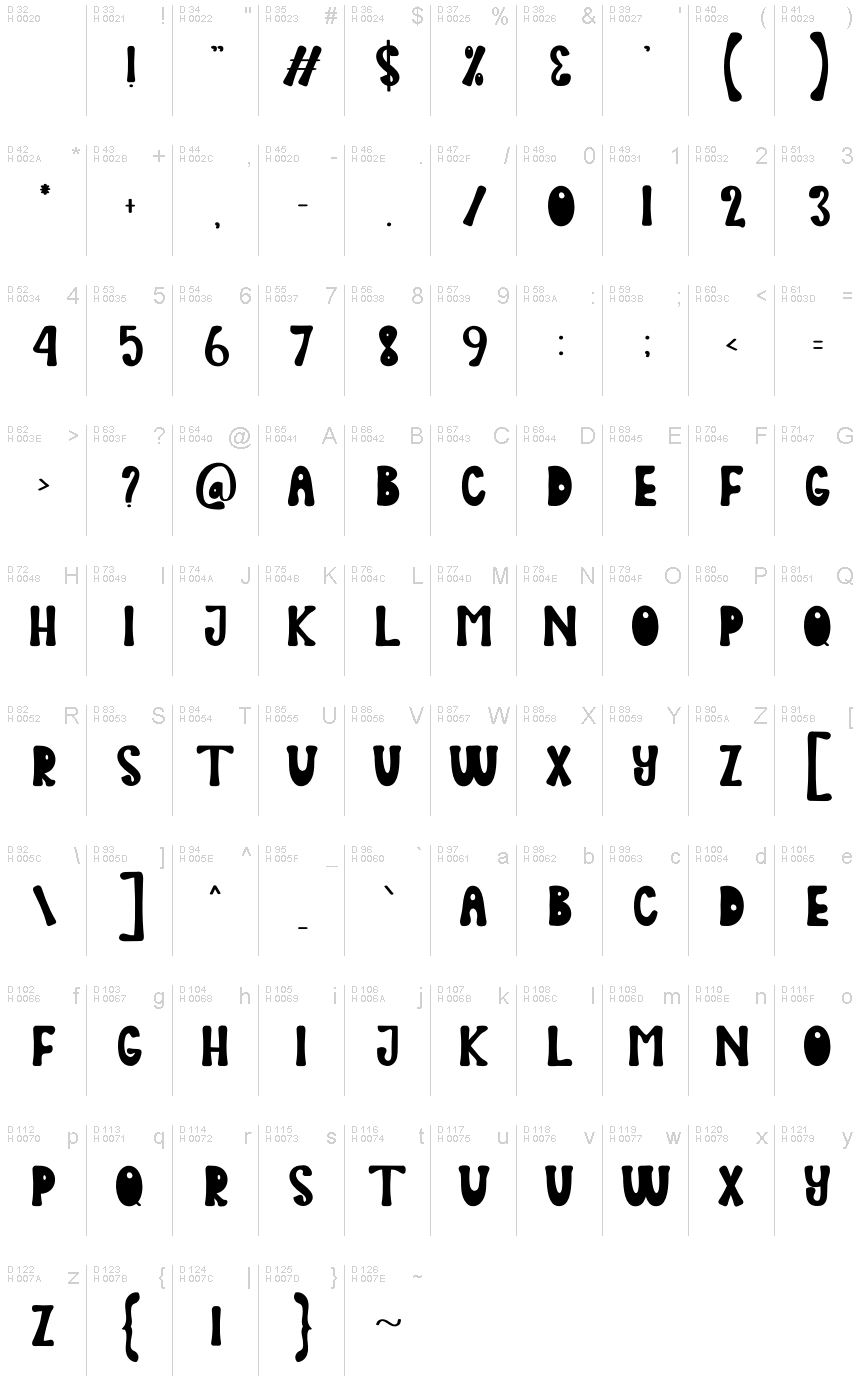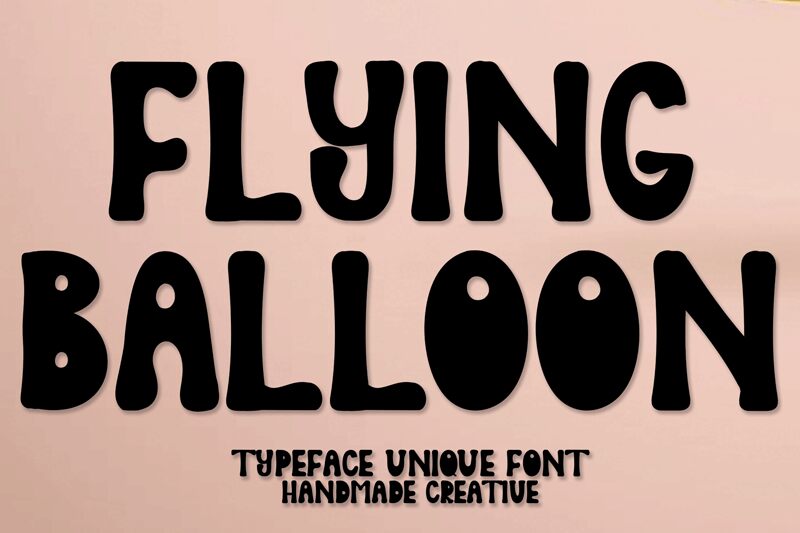
Flying Balloon
Scratchones, the accomplished designer, crafted this captivating display font called Flying Balloon that is whimsical and playful. This typeface has been designed like a cartoon and it has a differentiating aspect in its letterforms that are undulating and balloon-like making one feel light-hearted and young at heart. Its organic appearance makes it effortlessness, casualness thus being perfect for various design tasks.
With its playful curvatures as well as an odd character, Flying Balloon is the best option for branding, packaging, event materials, children’s publishing and any other gentle or friendly design work. It can be used to develop different projects since this font stands out among others.